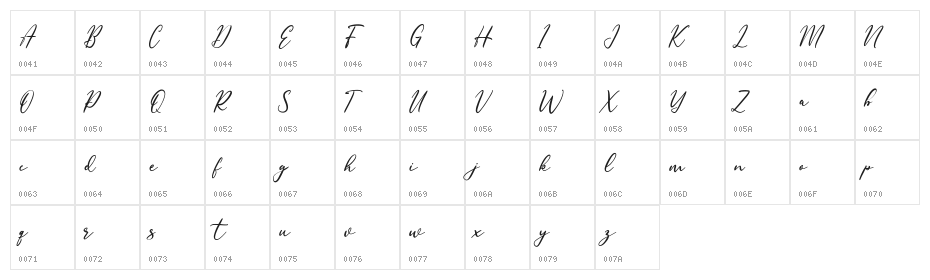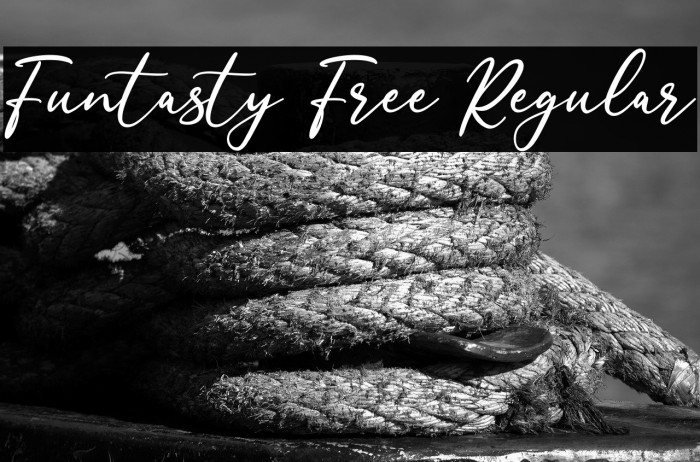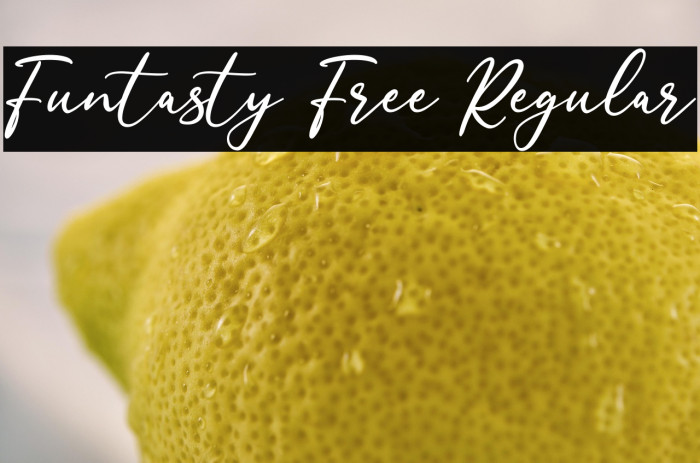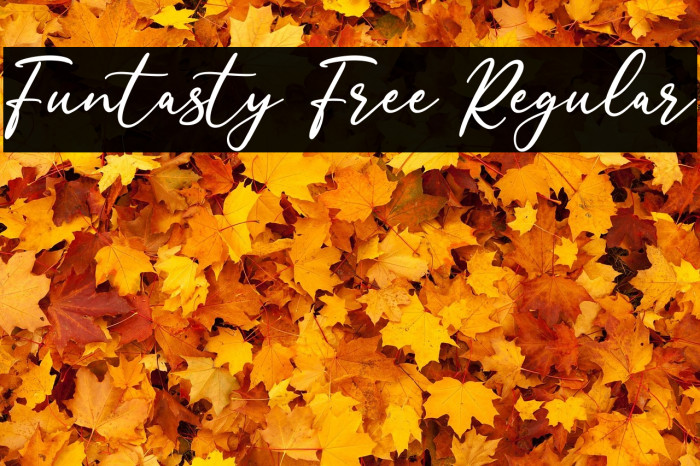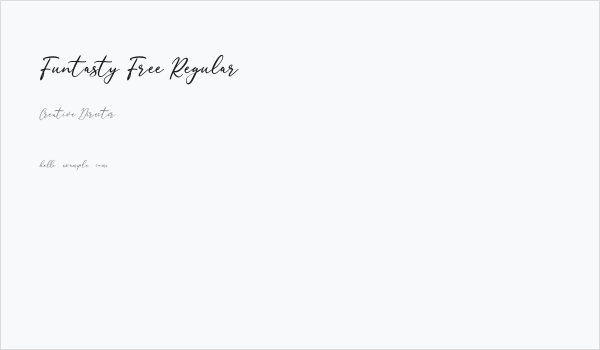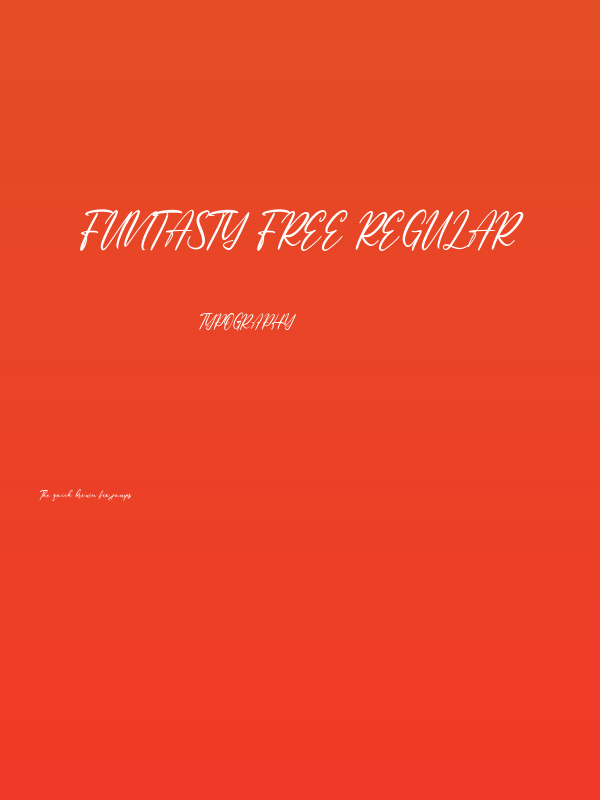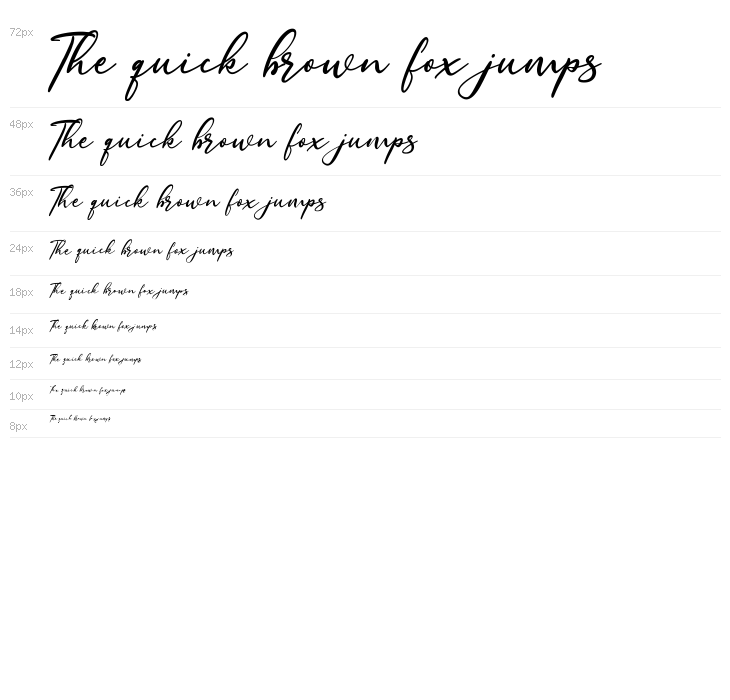
Funtasty Free Regular Font
Funtasty Free Regular Description
This elegant script font features a flowing, cursive style that mimics natural handwriting. The letters are connected with smooth, sweeping strokes, creating a sense of fluidity and grace. The uppercase letters are slightly more ornate, with extended loops and flourishes, while the lowercase letters maintain a consistent, harmonious flow. The font's overall appearance is both sophisticated and approachable, making it ideal for projects that require a personal touch. The characters are well-spaced, ensuring readability without sacrificing the decorative elements that define its style.
| Overall Style | Elegant, Decorative |
| Proposed Projects | Ideal for wedding invitations, greeting cards, branding, and elegant logo designs. |